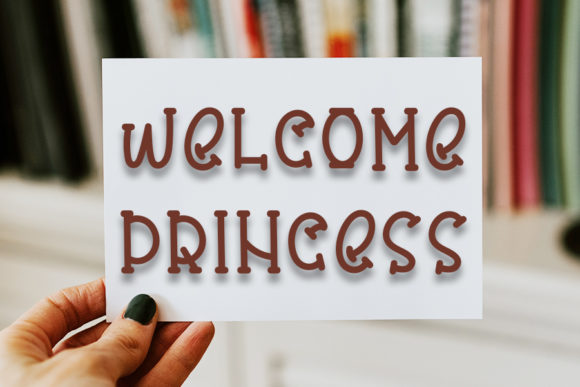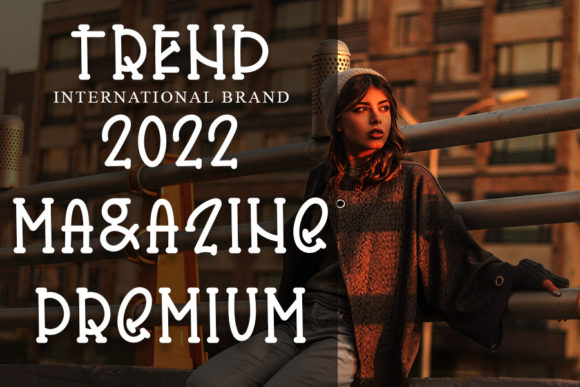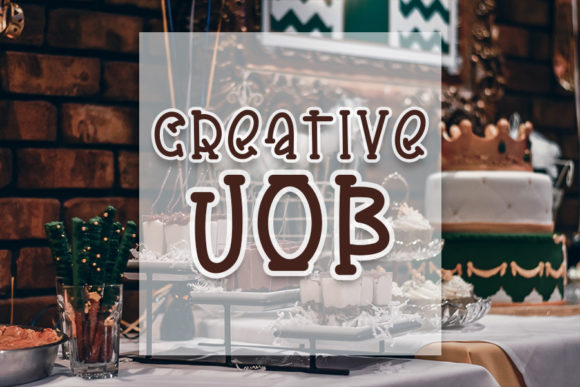
Introduction to Pinky Shake Font
Pinky Shake is a cute, quirky and jolly display font.
This font is perfect for children themed designs, especially when combined with bright colors .
Why Choose Pinky Shake Font?
Pinky Shake Font offers exceptional quality and versatility, making it a valuable addition to your design toolkit. Whether you’re creating for personal projects or commercial use, Pinky Shake Font delivers professional results.